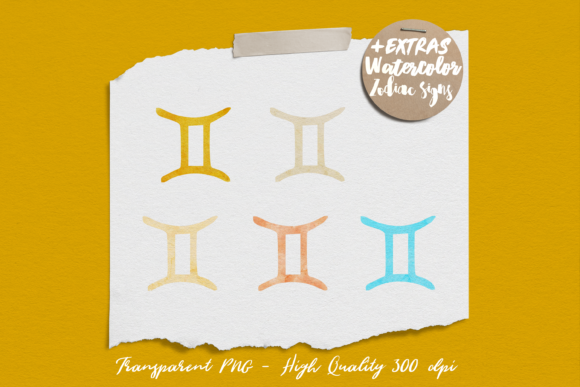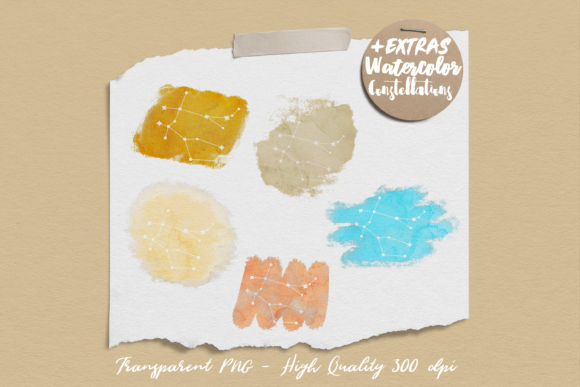
Witty Gemini Duo Font
db-ku.com - Script & Handwritten -- Witty Gemini Duo consists of two fonts (script and display) designed to complement each other perfectly. Together or apart, these fonts are ideal for adding a chic and cheery touch to your crafts. Witty Gemini Duo is PUA encoded which means you can access all of the glyphs and swashes with ease!